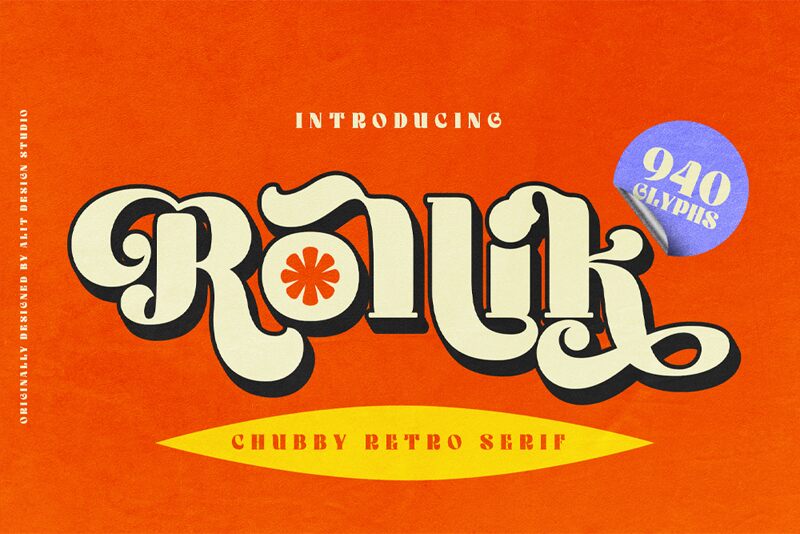
Rollik, crafted by Alit Design, emerges as a striking display font that captures the essence of groovy flair with an extra-bold weight. Its playful curves and bold character forms exude a sense of fun and creativity that is both visually engaging and aesthetically distinctive. The robust stature of Rollik immediately draws attention, making it ideal for head-turning titles, impactful branding, and standout advertising.
The font's style is reminiscent of vintage groovy motifs but with a modern twist that ensures versatility across various creative projects. Whether used in digital graphics or print media, Rollik's unique characteristics ensure that your message stands out with personality and confidence. Embrace the vibrant spirit of Rollik to infuse your designs with energy and contemporary coolness while paying homage to retro charm.